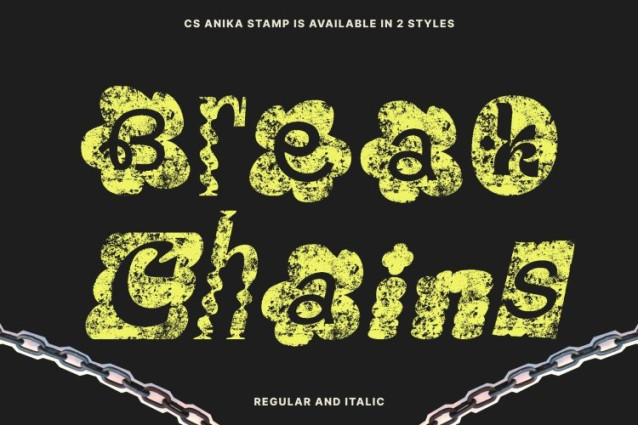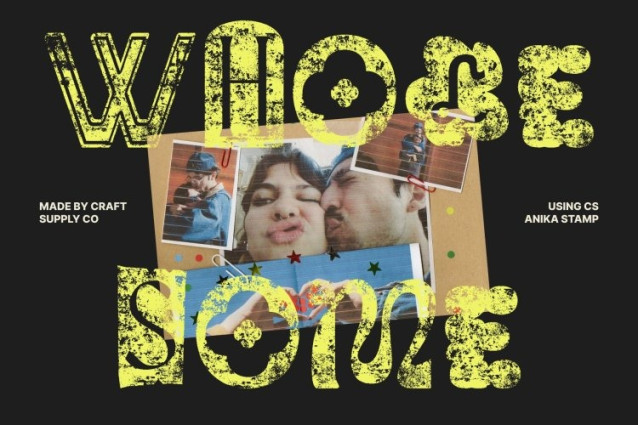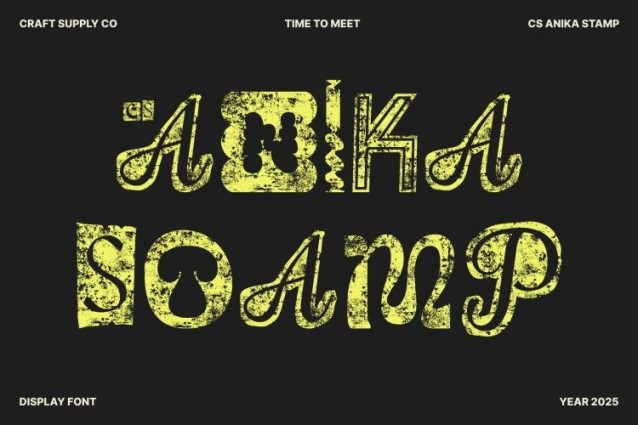
CS Anika Stamp Font This is a ransom-style display font crafted with chaotic, cut and paste letterforms that immediately command attention. Its irregular shapes and bold contrasts create a rebellious, dramatic tone that breaks the rules on purpose.
Expressive Stamp Texture for an Authentic Rough Finish
Amplifying its bold character, features an expressive stamp texture that adds grit, imperfection, and a handcrafted edge. The textured effect enhances the chaotic ransom aesthetic, giving each letter a rugged, tactile feel. This combination makes the font unique, impactful, and full of personality ideal for projects that require an intense, expressive visual voice.
Perfect for Edgy Branding, Posters, and Album Covers
Whether you’re designing an alternative band album cover, an underground event poster, or bold experimental branding, brings dramatic flair. Its rebellious personality sets the tone instantly, making it excellent for concepts that lean toward punk, grunge, horror, or urban street culture.
Disruptive Style for Creative Displays and Bold Headlines
This font thrives in display settings where shock value matters. Use it to craft headlines, flyers, merchandise graphics, or conceptual art pieces that demand attention. Its disruptive design, rough stamp texture, and chaotic cut and paste construction ensure your work looks daring, unconventional, and uniquely expressive perfect for standing out in any creative field.